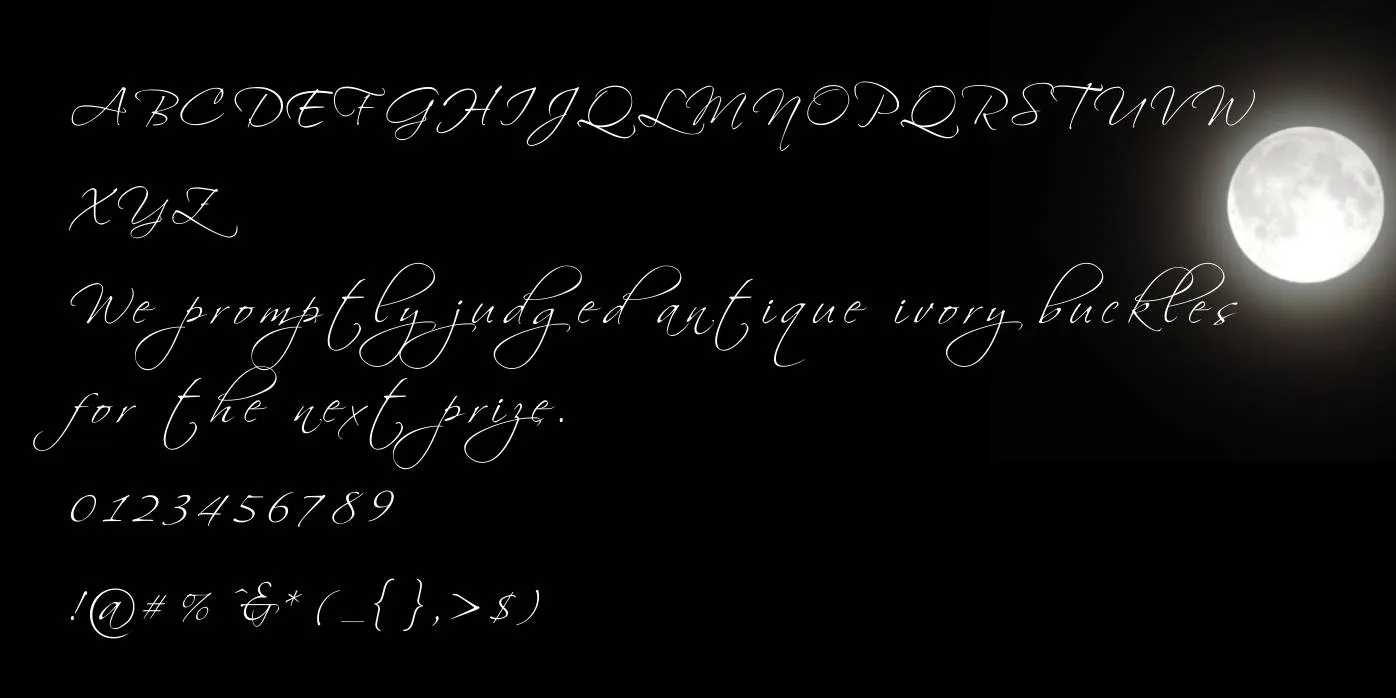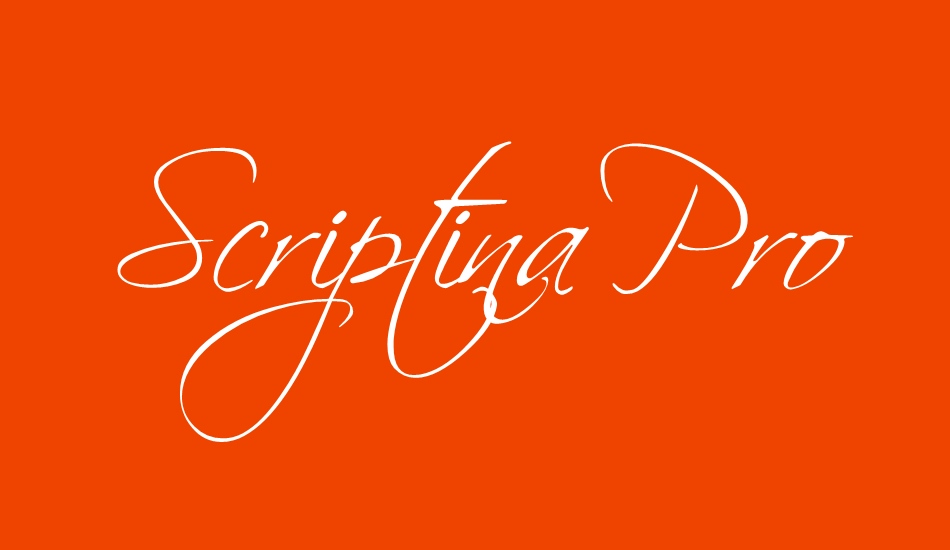
Scriptina Pro Font
Scriptina Pro Font is one of the best fonts that are available for free. This typeface is mostly used on Websites and it is similar to great vibes and Allura font. The font family belongs to a Calligraphy typeface family and was designed by Apostrophic Labs. The font has an Opentype layout and Postscript outlines as well also.
It includes Uppercase and Lowercase Letters, Numbers and Numerals, and applicable symbols also. You may also generate this typeface by an online generator tool even without downloading. This free font like voga font competencies that identical beauty. It’s unfastened to apply with privacy duties.